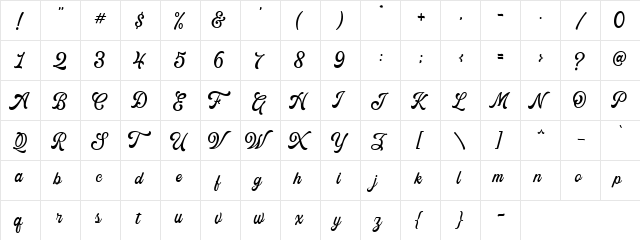
The Kogles Script DEMO Regular
| Foundry | Letterhend Studio |
| Designer | Bukancumaa |
Design Context for The Kogles Script DEMO Typeface
The Kogles Script DEMO brings a calligraphic fluidity to the page — its connecting strokes and expressive curves give it an unmistakably human quality.
Font Pairing: Combine The Kogles Script DEMO with a simple geometric sans for maximum contrast — the tension between flowing curves and clean structure is a classic typographic pairing.
Pro Tip: Use The Kogles Script DEMO for short runs of text — names, titles, or taglines. Extended body copy in script faces tires the eye quickly.